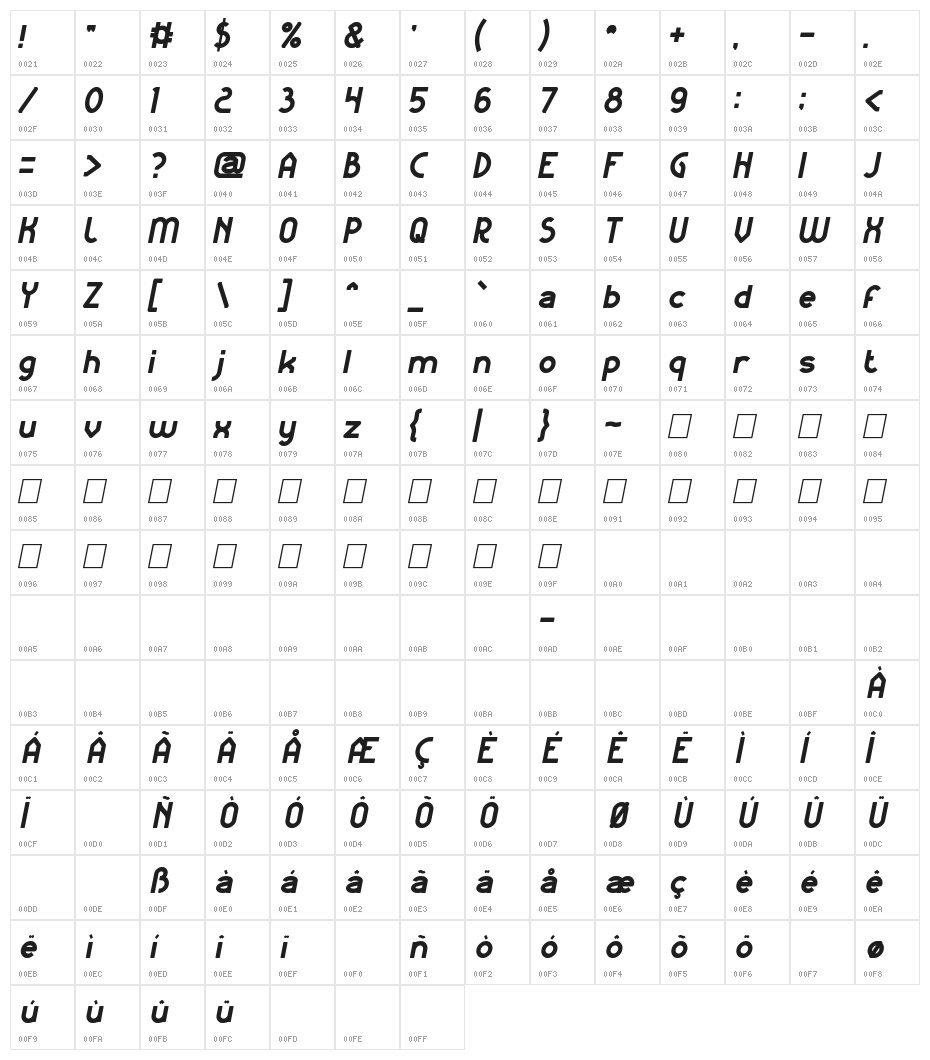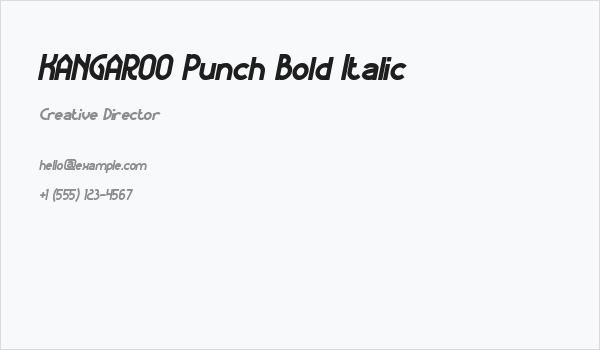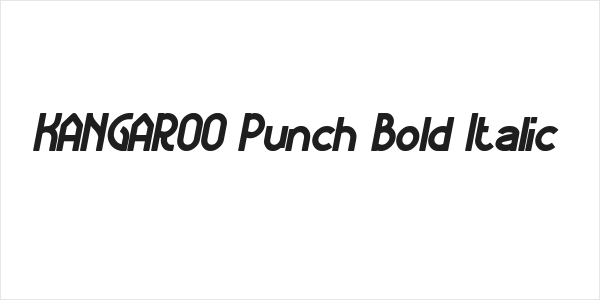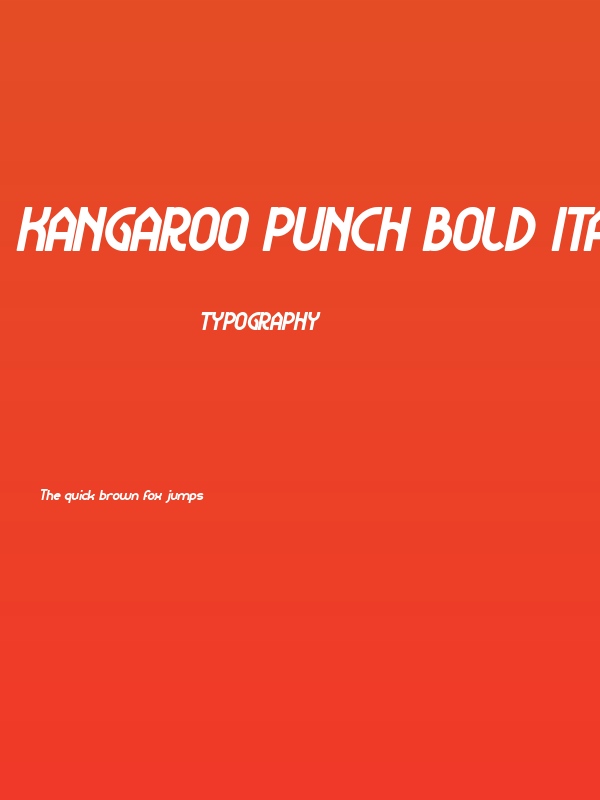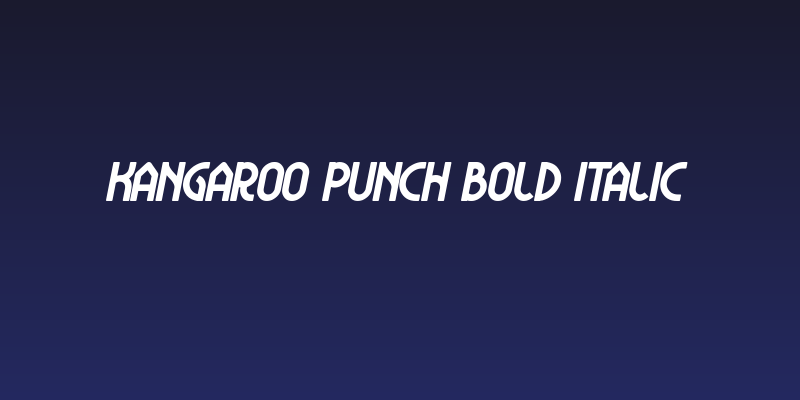
KANGAROO Punch Bold Italic Font
KANGAROO Punch Bold Italic Description
This font features a bold and dynamic style with a distinct italic slant, giving it a sense of motion and energy. The characters are thick and robust, making them stand out prominently. The rounded edges and smooth curves add a touch of modernity and friendliness, while the consistent stroke width maintains a clean and uniform appearance. The uppercase and lowercase letters are well-balanced, and the numerals are clear and legible. Special characters are included, enhancing its versatility for various design needs.
| Proposed Projects | Ideal for sports branding, dynamic posters, energetic advertisements, and modern logo designs. |